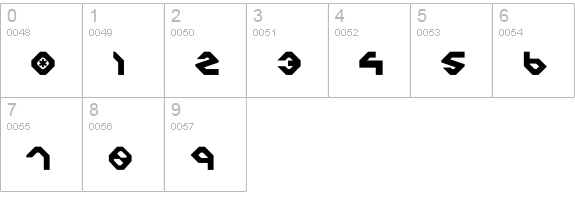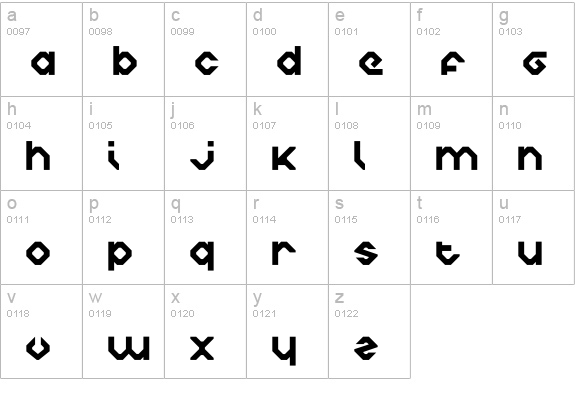
Introducing Charlie's Angles font, a sleek and dynamic typeface that brings a touch of edgy sophistication to your designs. With its sharp angles and modern aesthetic, this font exudes a sense of energy and style, perfect for making a bold statement in your projects. Designed with versatility in mind, Charlie's Angles font is ideal for a wide range of applications, from branding and advertising to digital and print media. Its clean lines and distinctive character set make it a standout choice for logos, headlines, and more. Best of all, Charlie's Angles font is available for free download at FontsMarket.com. Whether you're a seasoned designer looking to add a fresh new font to your collection or a beginner eager to experiment with different typefaces, this font is sure to inspire creativity and elevate your work to new heights. Download Charlie's Angles font today and unleash your design potential!